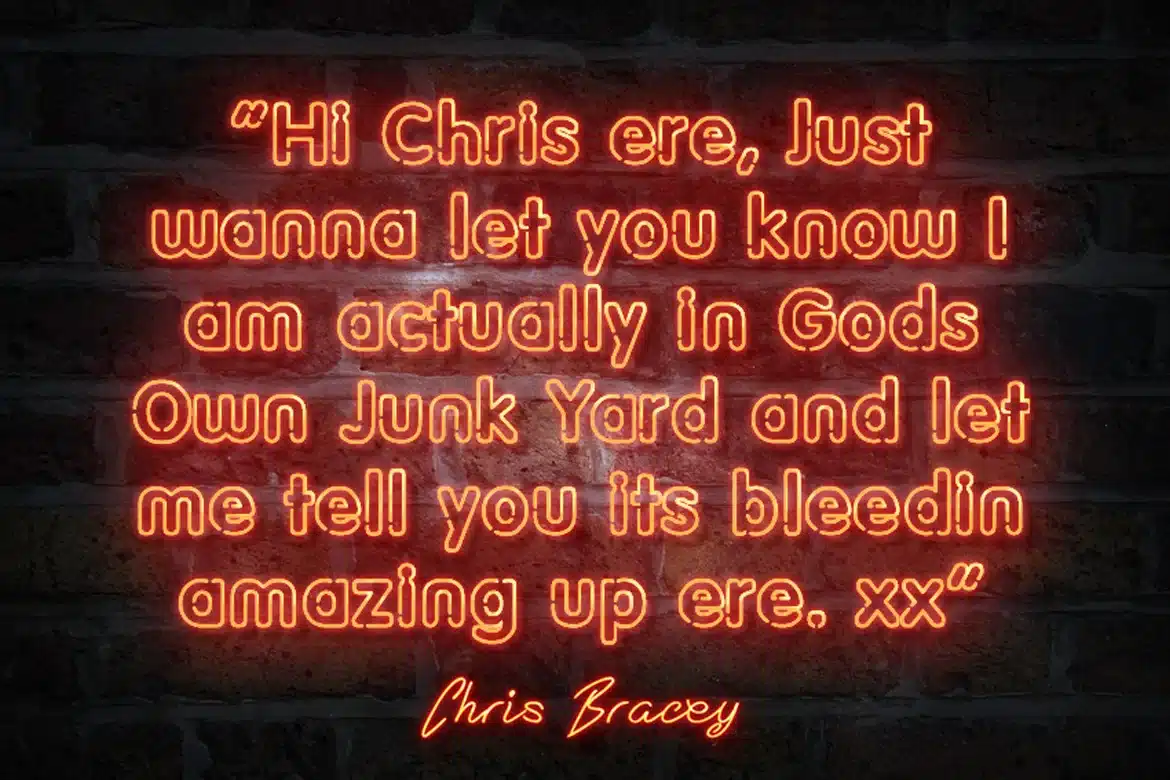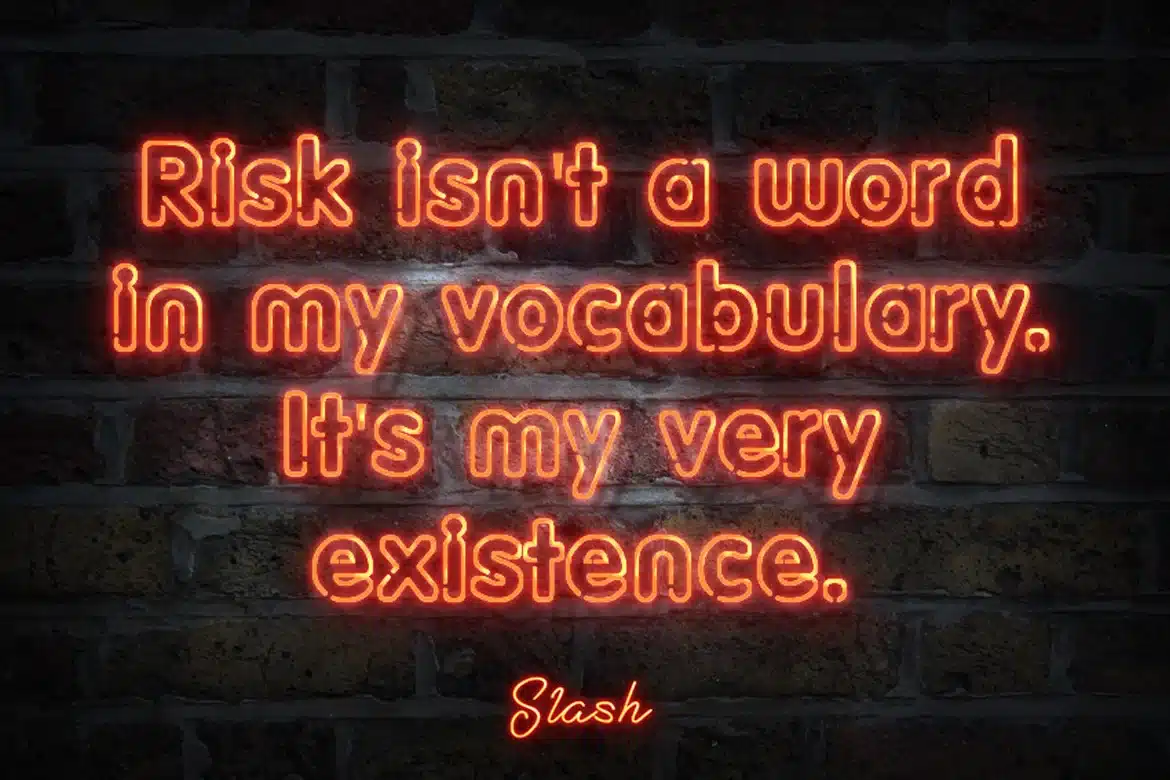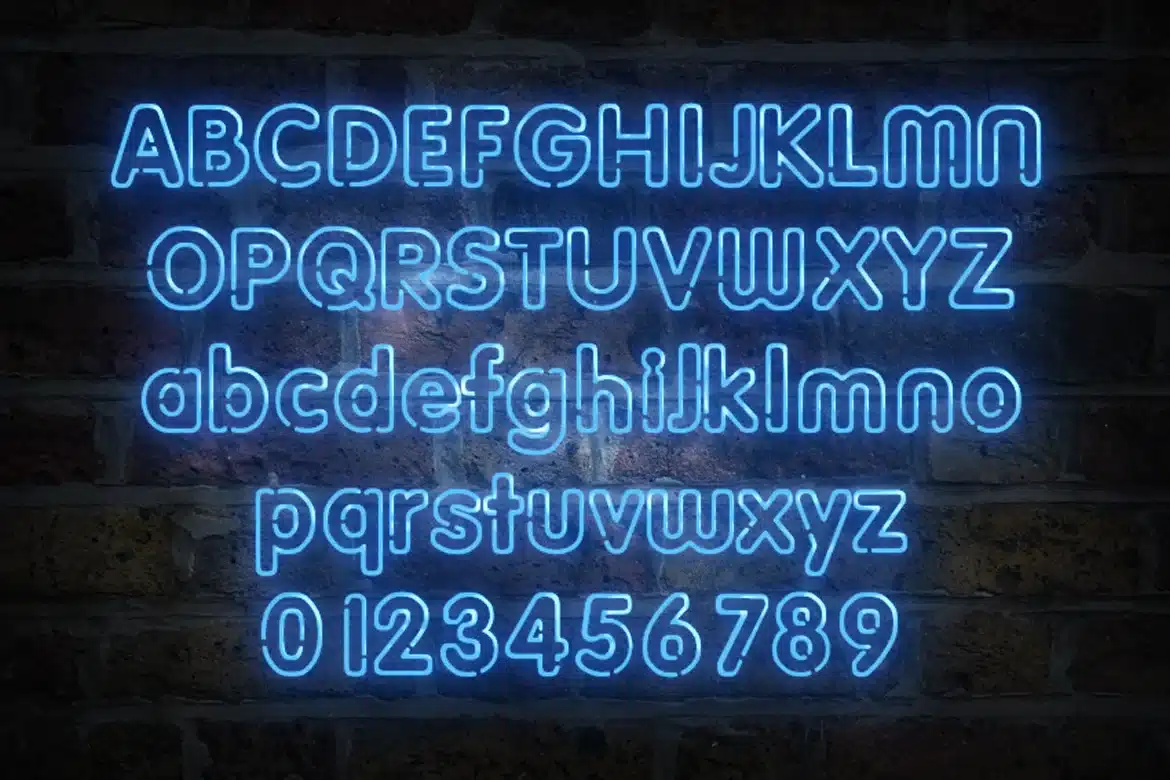
Gods own junkyard Font
The inspiration came from Chris “The Neon Man” Bracey. Chris was a British designer and artist who owned one of the biggest collections of neon signs and sculpture outside the United States.
Chris ran his own studio called Gods Own Junkyard in Walthamstow in north east London. He died on the 1st of November 2014, at the age of 59 from prostate cancer.
I never knew Chris and I’ve never been to Gods Own Junkyard (will do soon), but I love his work and his fighting spirit.
His story inspired me to create this font.
The font
It includes 92 glyphs in total – uppercase, lowercase, numbers and some punctuation. The font format is otf.